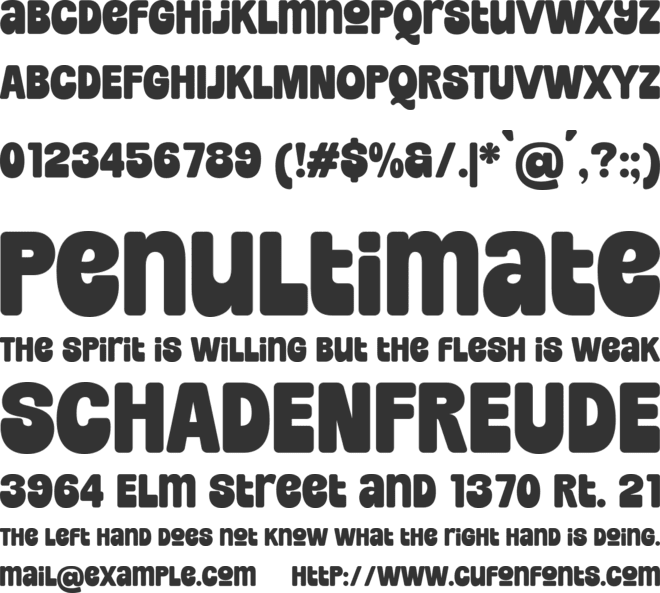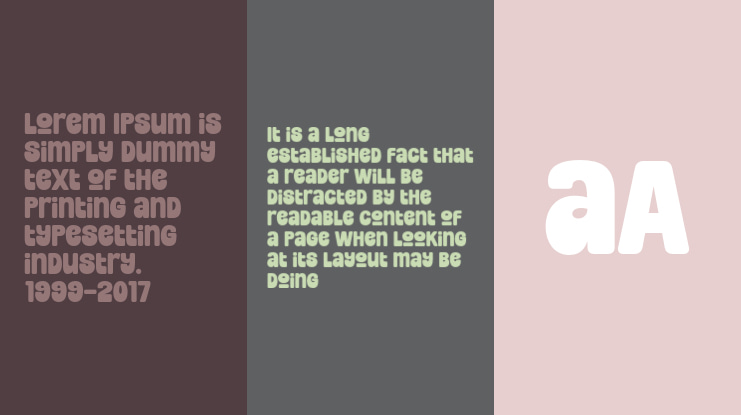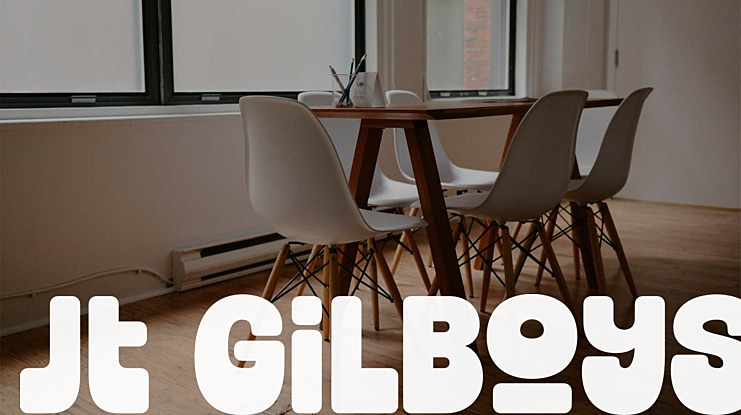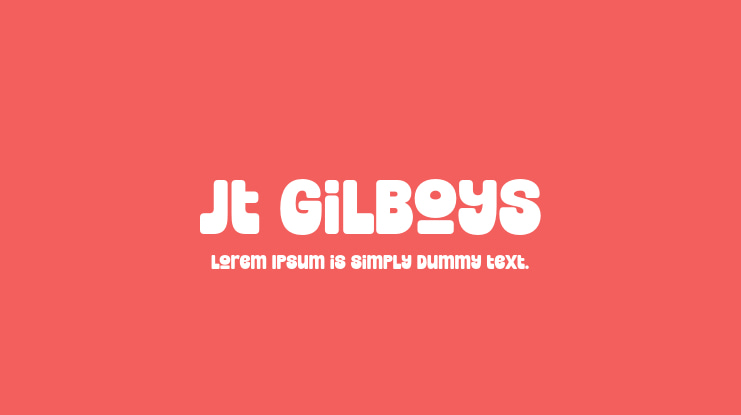
Jt Gilboys Font
Jt Gilboys font is inspired by bold and rounded typefaces. With its unique character, plump body, and rounded shape, it is the perfect choice for editorial purposes. You can also use the various glyphs to create a distinctive appearance for your design, whether it's a world name or a brand identity.